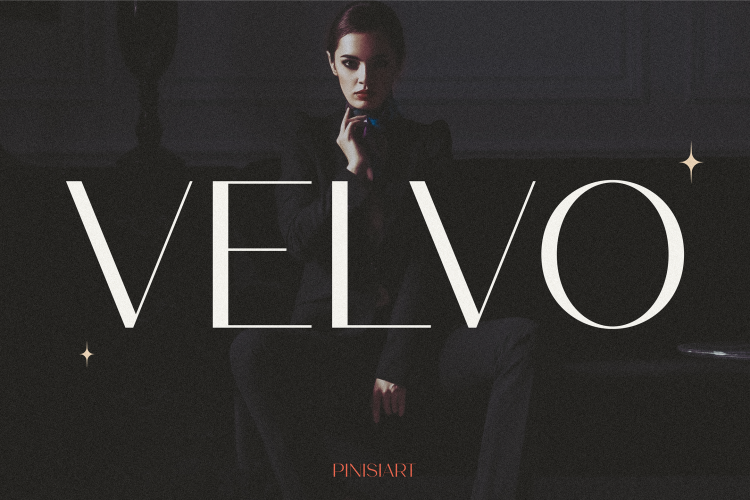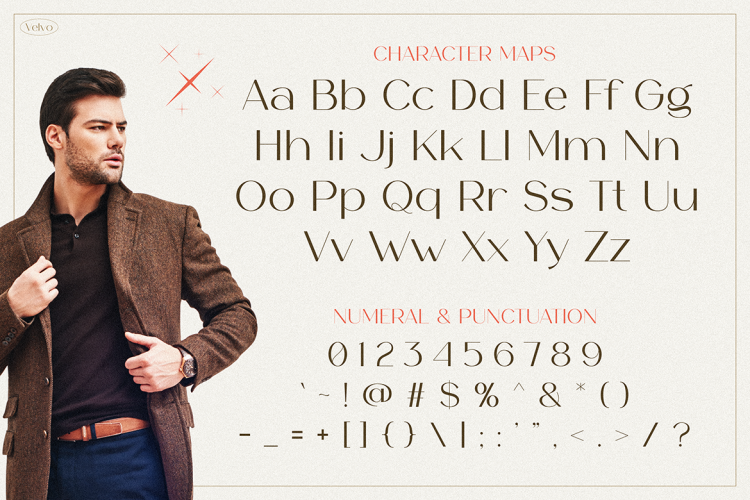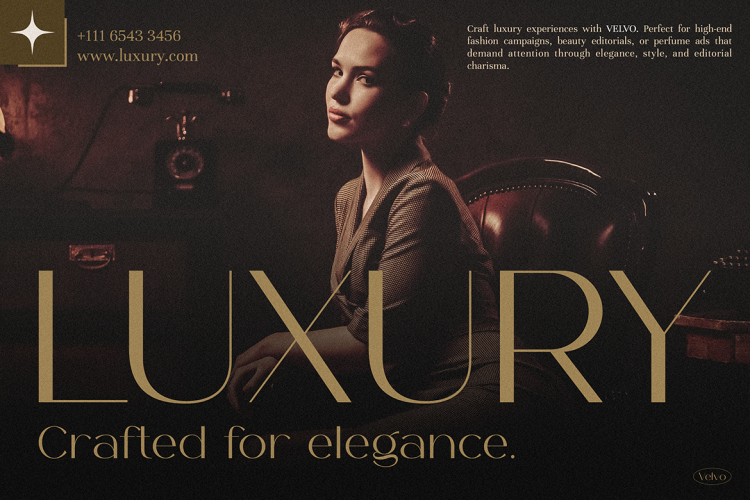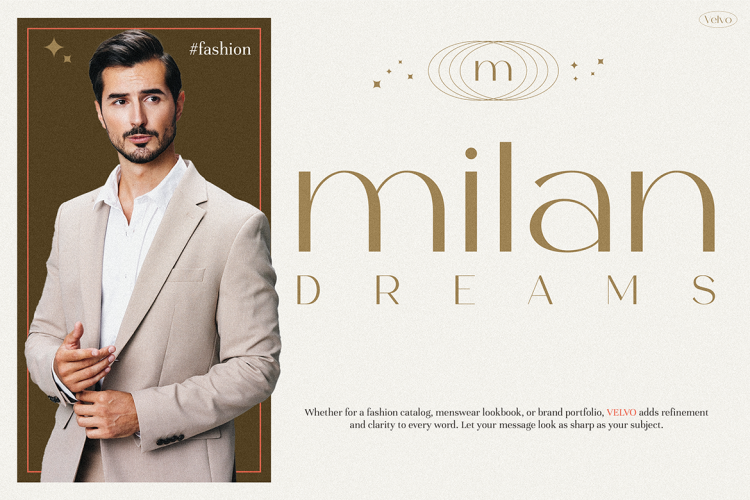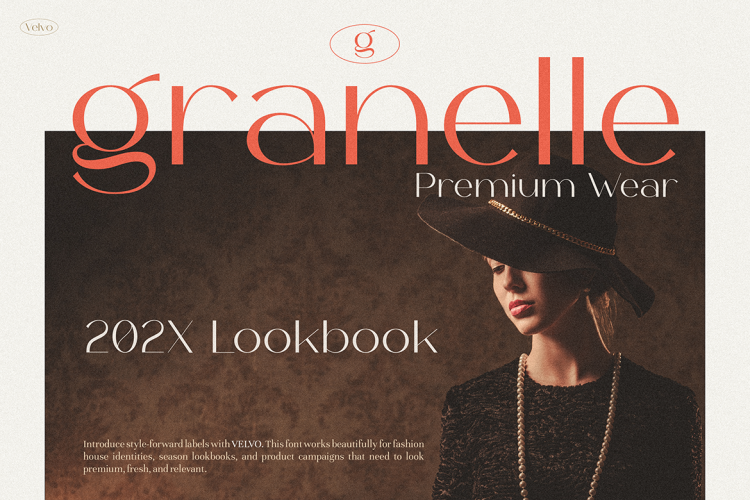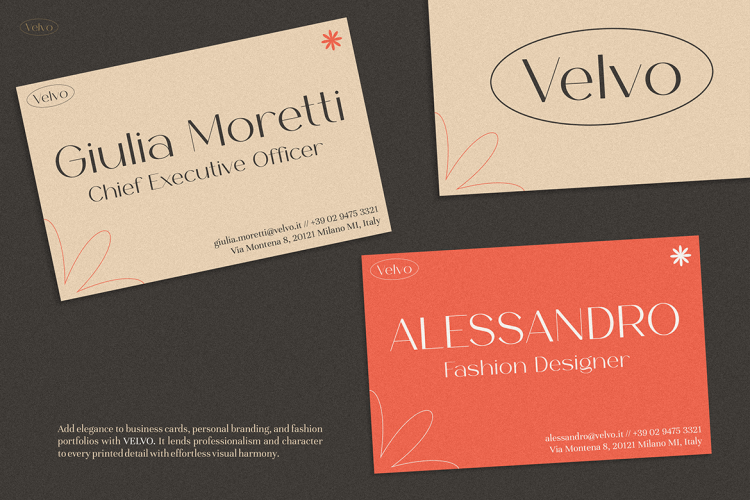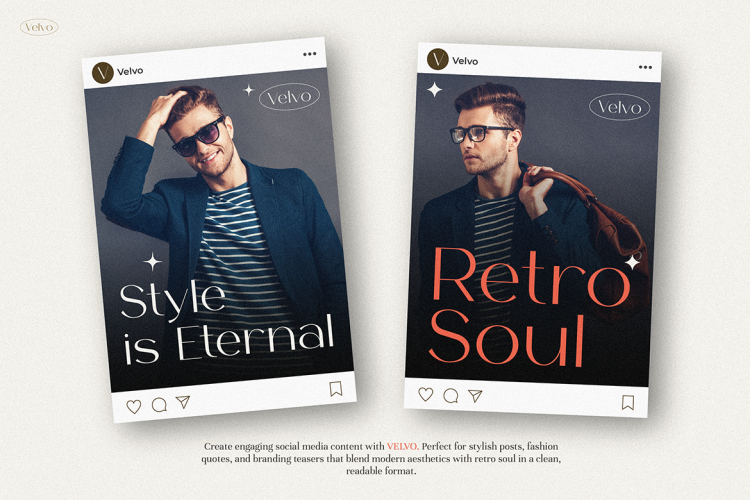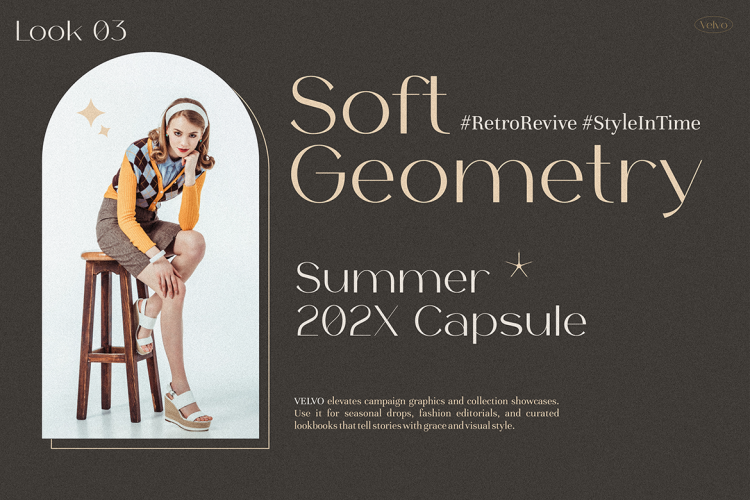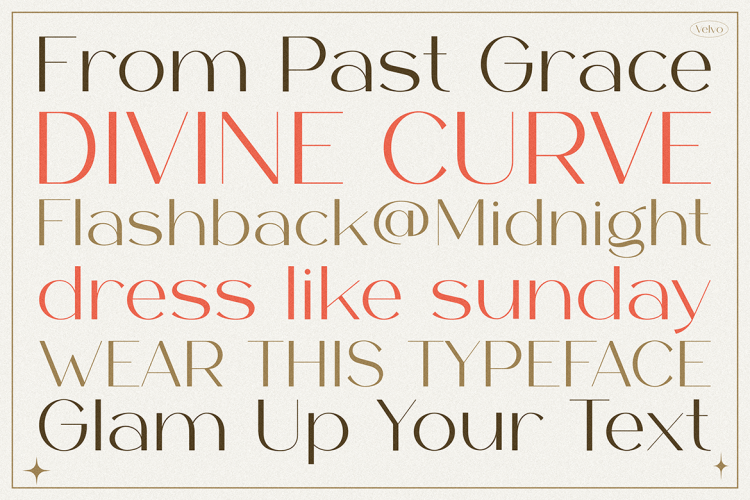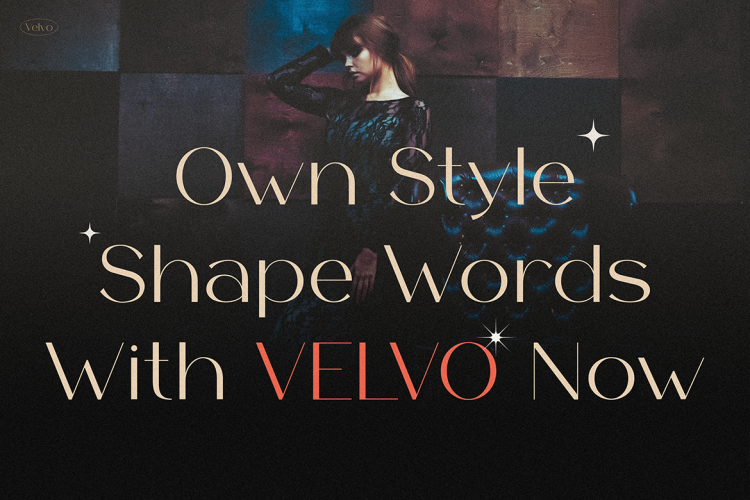
Instagram Font VELVO: A Sophisticated Statement in Every Stroke
Instagram Font VELVO brings a refreshing mix of elegance and modern simplicity to your brand visuals. It stands out with sleek curves, clean lines, and a graceful balance. As a result, your message appears polished and stylish from the very first glance.
Each letterform is crafted with intention. Therefore, the font doesnโt just deliver informationโit shapes a refined visual identity. Furthermore, the soft curves and generous spacing add a touch of luxury to every word. Itโs ideal for creators who value aesthetics and function equally.
In addition, VELVO blends well with neutral tones and clean layouts. Whether you’re designing Instagram posts, fashion lookbooks, or editorial spreads, this font enhances your work effortlessly. Its minimalist design makes your content easy to read while still feeling upscale.
What sets VELVO apart is its quiet sophistication. It doesnโt rely on bold tricks to get noticed. Instead, it captures attention with poise and subtle charisma. Consequently, your content gains a professional edge that stands out in any feed or layout.
Who Is It For?
VELVO is a great fit for:
Fashion brands and stylists who need a high-end typeface to match their visual identity.
Luxury influencers who want a consistent and polished Instagram feed.
Photographers and creative directors who appreciate refined, editorial-style type.
Cosmetic and perfume marketers aiming for elegant and modern packaging.
Template designers creating sleek Instagram and branding kits for premium clients.
Moreover, VELVO suits any project that calls for a clean, sophisticated look. Whether you’re working on digital or print materials, it adapts beautifully. Because of its versatility, itโs a go-to font for anyone aiming to build a luxurious brand presence.
Make Your Brand Unforgettable
If you want your design to speak style and class, Instagram Font VELVO is the answer. It enhances your visuals without overpowering them. In short, this font gives your work a refined edge thatโs hard to ignore.
So why wait? Elevate your brand and let your words look as elegant as your vision. Choose VELVOโwhere style meets clarity.